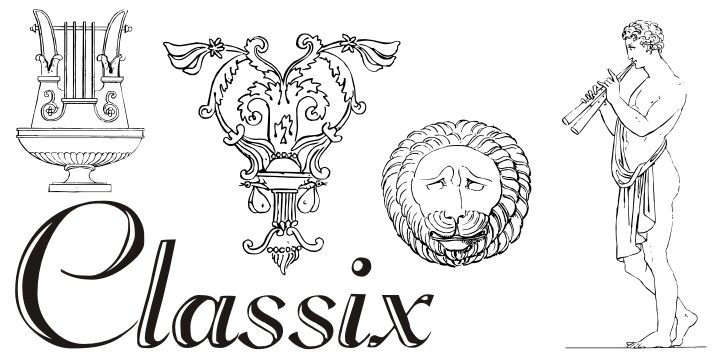
Classix by Paulo W. is a free ancient-themed symbol font filled with finely drawn figures and ornaments from the classical world. Winged deities, draped musicians, theatrical masks, vessels, animals, and floral details share the crisp contour lines and engraved shading of old archaeological illustrations.
In museum publishing, these pictures can mark sections or enliven exhibition material, yet their theatrical subject matter also suits event posters, wine packaging, and history-themed games. Rather than acting as ordinary lettering, each character can become an illustrated emblem, decorative border element, or scene-setting icon that ties a design to ancient Greek and Roman visual culture.